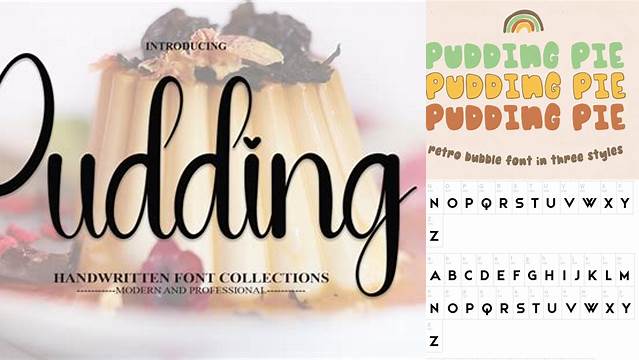
Free Pudding Font Download: A Sweet Treat For Your Designs
Are you searching for a font that is both playful and versatile, adding a touch of sweetness to your designs? Look no further than Pudding Font! This delightful typeface is a fantastic choice for a wide range of projects, from children's books and party invitations to branding materials and website headers. The best part? You can often find Pudding Font available for free download, making it an accessible option for designers of all levels. In this article, we will delve into the delightful world of Pudding Font, exploring its unique characteristics, ideal use cases, and where you can find it for free to elevate your creative endeavors.
What Makes Pudding Font So Appealing?
Pudding Font's appeal lies in its charming and whimsical nature. Its rounded letterforms and playful curves evoke a sense of fun and lightheartedness, making it a perfect choice for projects that need a touch of personality. Imagine using it for a children's book cover, a birthday party invitation, or a logo for a bakery – the possibilities are endless! Its versatility also stems from the fact that it often comes in various weights and styles, allowing you to tailor it to your specific needs. Whether you need a bold and attention-grabbing headline or a lighter, more delicate body text, Pudding Font can adapt to the task. It is this unique combination of playfulness and adaptability that makes Pudding Font a favorite among designers looking to add a touch of sweetness to their work. Think of how the soft, rounded edges mimic the texture of a creamy pudding, instantly bringing a sense of warmth and comfort to the viewer. The font’s inherent friendliness makes it particularly well-suited for projects targeting children or those seeking a playful and approachable aesthetic. Moreover, its legibility remains strong even in smaller sizes, making it a practical choice for various applications. Designers appreciate that Pudding Font often includes a comprehensive set of characters, including uppercase and lowercase letters, numerals, punctuation marks, and even special glyphs, providing a full toolkit for creative expression. This thoroughness ensures that the font can be seamlessly integrated into a wide array of design projects, from print materials to digital interfaces. The ability to mix and match different weights and styles within the Pudding Font family further enhances its versatility, allowing designers to create visual hierarchy and emphasis with ease. For instance, a bold weight can be used for headings and titles to capture attention, while a lighter weight can be used for body text to ensure readability. This adaptability makes Pudding Font a valuable asset in any designer’s font library, capable of adding a touch of whimsy and charm to any project. In essence, the appeal of Pudding Font lies not only in its aesthetic qualities but also in its practicality and versatility, making it a delightful and functional choice for a wide range of design applications. Its friendly demeanor and clear legibility ensure that it communicates the intended message effectively, while its playful curves add a touch of personality and warmth.
Ideal Use Cases for Pudding Font
The versatility of Pudding Font shines through when considering its ideal use cases. This font truly excels in projects where a touch of playfulness and friendliness is desired. Think of children's books, where its whimsical letterforms can bring characters and stories to life. Its approachable nature makes it perfect for educational materials as well, creating a welcoming and engaging learning environment. Birthday party invitations become instantly more cheerful with Pudding Font, and its sweet aesthetic lends itself beautifully to branding for bakeries, cafes, and other food-related businesses. Beyond these, consider using Pudding Font for social media graphics, blog headers, and even website body text if you're aiming for a lighthearted and inviting feel. Its legibility in various sizes ensures it remains practical for a multitude of applications. For instance, in the realm of social media, Pudding Font can be used to create eye-catching posts and stories that capture the attention of your audience. Its unique character makes your content stand out from the crowd, especially when combined with vibrant colors and playful graphics. In blog headers, Pudding Font can set the tone for your website, signaling to visitors that they are about to enter a friendly and engaging space. If your blog focuses on topics such as parenting, lifestyle, or creative hobbies, Pudding Font can be an excellent choice to convey a sense of warmth and approachability. Even for website body text, Pudding Font's legibility makes it a viable option, especially for websites that cater to younger audiences or those that aim to create a casual and inviting atmosphere. However, it is important to use it judiciously and ensure that the overall design remains balanced and professional. In the realm of marketing materials, Pudding Font can be used to create brochures, flyers, and posters that are both visually appealing and informative. Its playful nature can help to soften the tone of your message and make it more relatable to your target audience. For instance, if you are promoting a family-friendly event or a product aimed at children, Pudding Font can be a perfect choice to convey a sense of fun and excitement. Furthermore, its versatility allows it to be used in a variety of formats, from print to digital, making it a valuable asset for any marketing campaign. In essence, the ideal use cases for Pudding Font extend to any project where a touch of playfulness, friendliness, and warmth is desired. Its versatility and legibility make it a practical choice for a wide range of applications, from children’s books to branding materials, ensuring that your message is conveyed effectively and with a touch of personality.
Tips for Using Pudding Font Effectively
So, you've downloaded Pudding Font – fantastic! Now, let's talk about how to use it effectively. While this font is undeniably charming, it's crucial to use it thoughtfully to avoid overwhelming your design. One key tip is to use it sparingly. Pudding Font's playful nature can be quite impactful, so it's often best used for headings, titles, or short bursts of text rather than large blocks of body copy. Think of it as the icing on the cake – a little goes a long way! Pairing Pudding Font with a simpler, more neutral font for body text can create a balanced and visually appealing design. Imagine using Pudding Font for your website's headings and a clean sans-serif font like Open Sans or Lato for the body text. This combination provides a playful touch while maintaining readability and professionalism. Another important consideration is the color palette you use with Pudding Font. Given its lighthearted feel, bright and cheerful colors often complement it well. However, depending on the overall tone you're aiming for, you can also experiment with more muted or pastel shades. For instance, if you're designing a baby shower invitation, soft pastel colors like pink, blue, and lavender can work beautifully with Pudding Font. On the other hand, if you're creating a logo for a children's clothing brand, bolder and brighter colors might be more appropriate. Spacing and kerning are also crucial aspects of using any font effectively, and Pudding Font is no exception. Pay close attention to the spacing between letters and words to ensure readability and visual harmony. Adjusting the kerning, which is the spacing between individual letter pairs, can help to refine the overall look of your text. Some letter combinations might appear too close or too far apart by default, so kerning adjustments can make a significant difference in the final result. In addition to these technical considerations, think about the overall message you want to convey. Pudding Font's playful and friendly nature makes it ideal for projects that aim to create a warm and inviting atmosphere. However, it might not be the best choice for more serious or formal contexts. Consider your target audience and the overall tone of your design when deciding whether to use Pudding Font. Finally, don't be afraid to experiment! Try using different weights and styles within the Pudding Font family to create visual interest. You can also combine Pudding Font with other design elements, such as illustrations or graphics, to create a cohesive and engaging design. By following these tips, you can harness the full potential of Pudding Font and create designs that are both visually appealing and effective in communicating your message. Remember, the key is to use it thoughtfully and in a way that complements the overall design aesthetic.
In Conclusion
Pudding Font is a delightful addition to any designer's toolkit, offering a playful and versatile option for a wide range of projects. Its rounded letterforms and friendly aesthetic make it a perfect choice for children's materials, party invitations, branding, and much more. And with the possibility of finding it for free download, it's an accessible option for designers of all levels. Just remember to download from reputable sources and respect the font's licensing terms. By using Pudding Font thoughtfully and creatively, you can add a touch of sweetness and personality to your designs, making them truly stand out from the crowd. So go ahead, give Pudding Font a try and let your creativity flow! You might just discover your new favorite typeface.